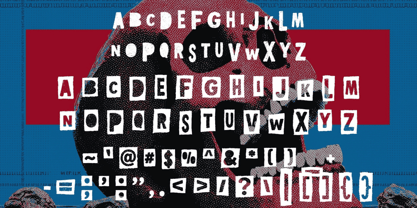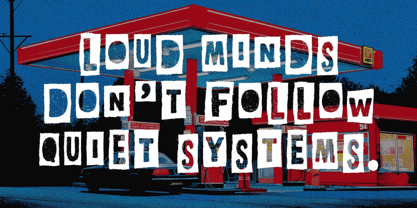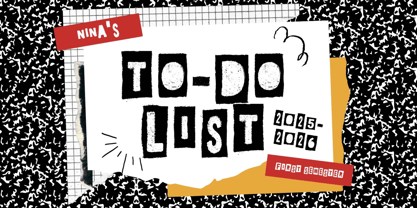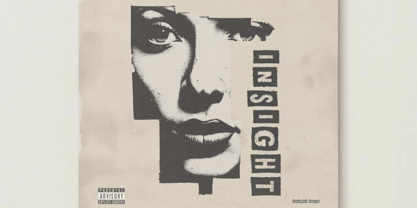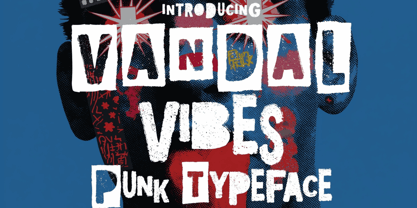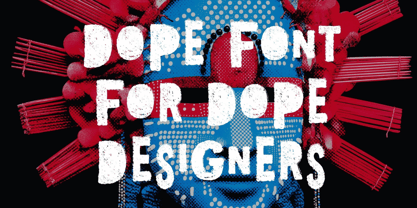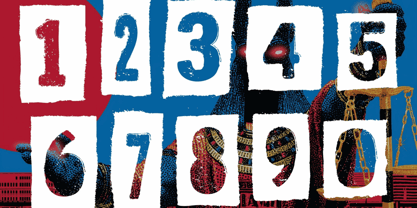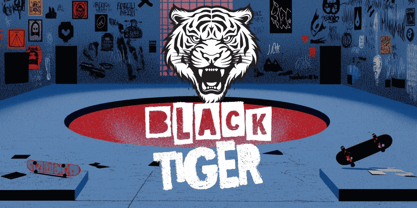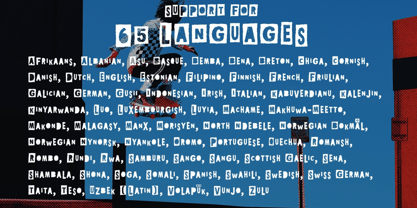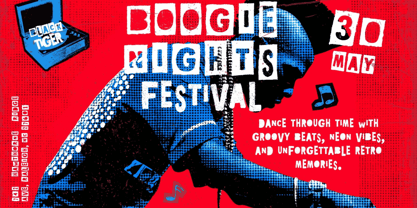
Vandal Vibes
The Vandal Vibes Font Family was designed by Igor Ovsyannykov and published by Hipfonts. Vandal Vibes contains 1 styles. More about this family
Vandal Vibes is a rebellious display typeface that refuses to play by the rules. Designed with raw energy and DIY spirit, it channels the visual chaos of punk culture, underground zines, and street-level graffiti aesthetics.
This font gives designers full creative control between clean impact and gritty, worn-out distortion. The Regular style delivers bold, cut-and-paste inspired letterforms with strong readability and attitude, while the Textured style adds a distressed, chaotic finish that feels stamped, sprayed, and torn from the streets.
Every character carries a sense of movement and imperfection, capturing the spirit of handmade posters, protest signage, and analog collage culture. Uppercase and lowercase forms are intentionally varied, allowing for unpredictable layouts and expressive typography compositions that feel alive and nonconformist.
Perfect for punk-inspired branding, album covers, zines, posters, bold advertising, skate culture visuals, and editorial design, Vandal Vibes thrives wherever visual rebellion is needed. It also brings a striking edge to unexpected applications like packaging, invitations, and stationery—turning even structured layouts into statements of defiance.